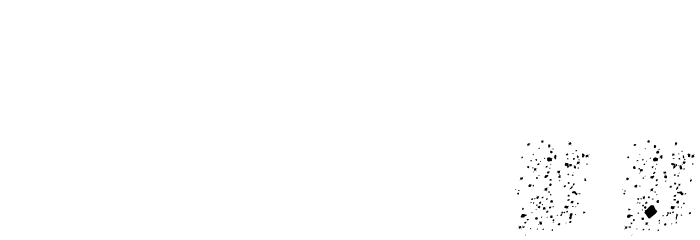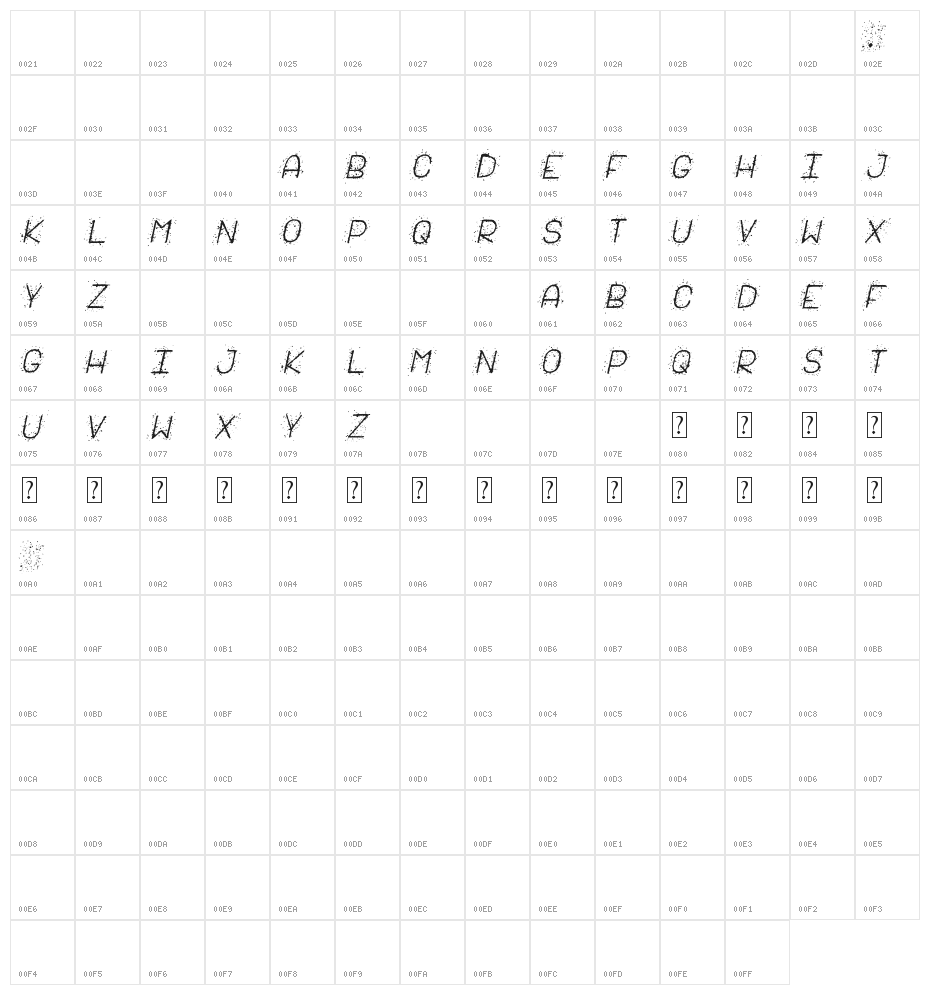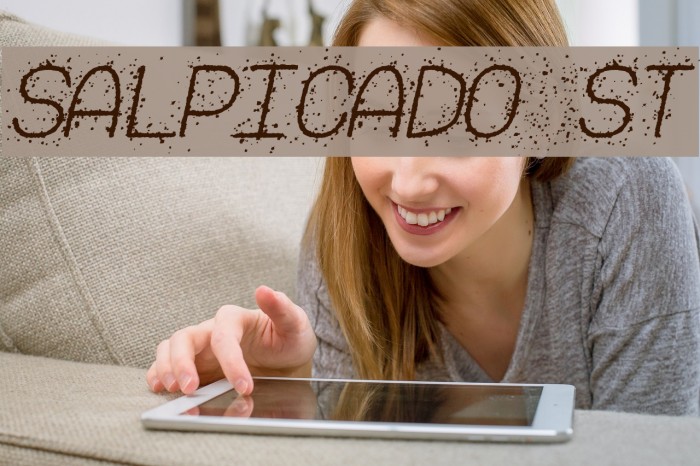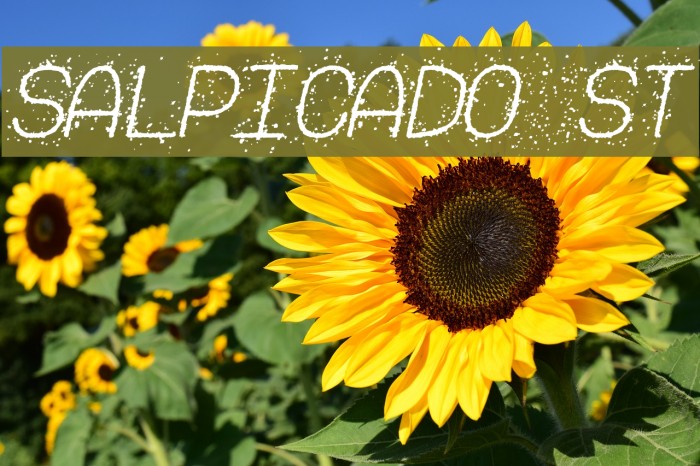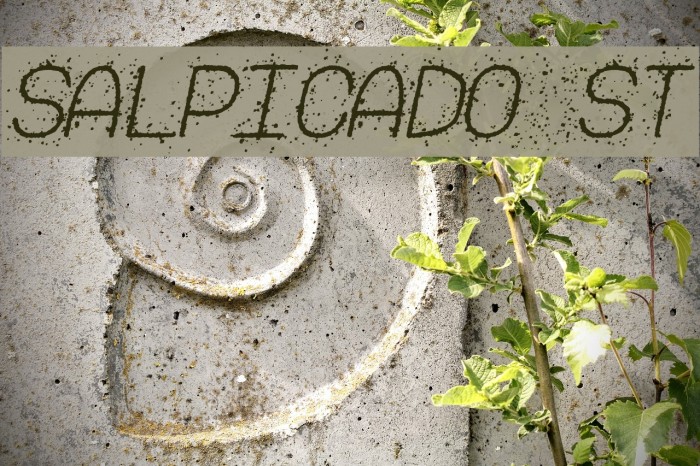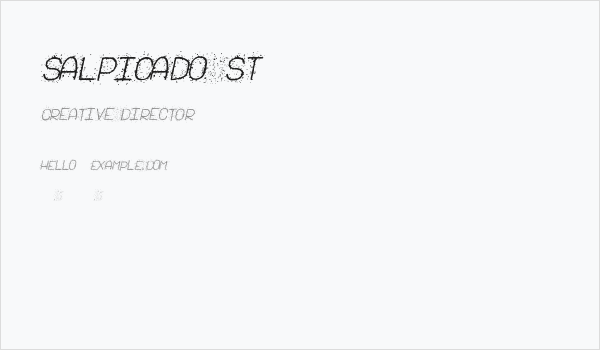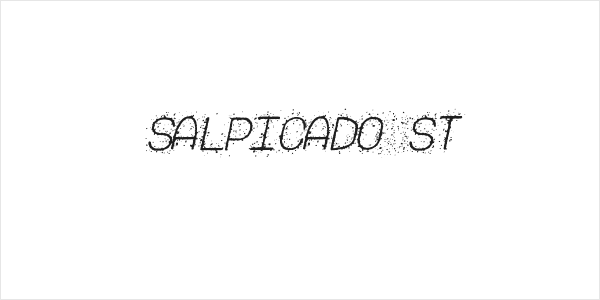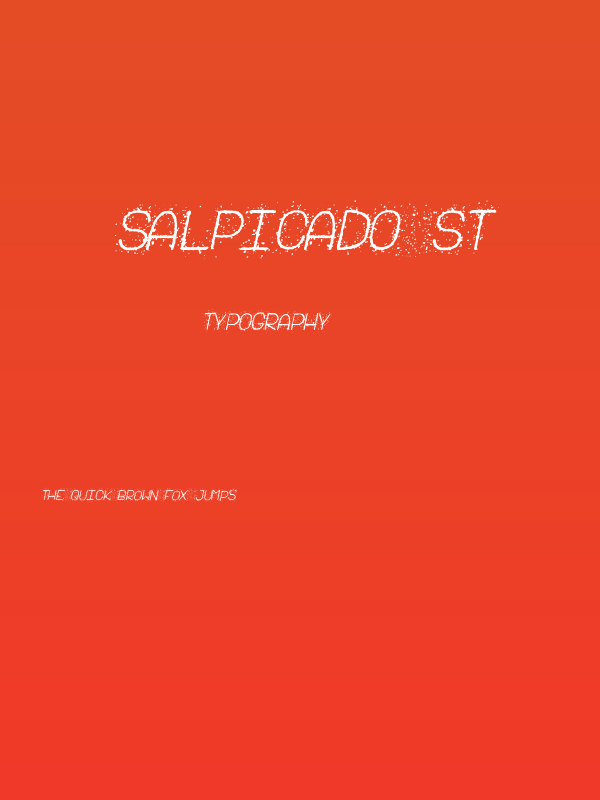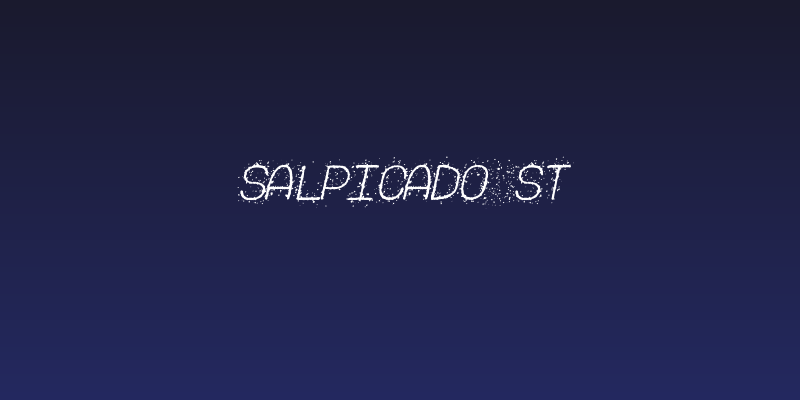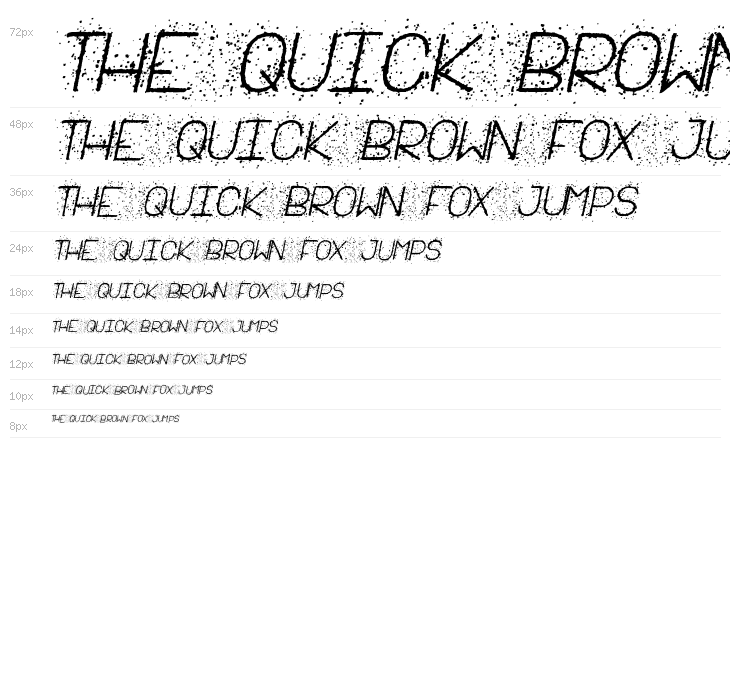
Salpicado St Font
Salpicado St Description
This font features a unique, speckled texture that gives it a dynamic and energetic appearance. The characters are crafted with a consistent stroke width, creating a uniform look across both uppercase and lowercase letters. The speckled effect adds a sense of movement and texture, making it stand out in any design. The letters are slightly slanted, adding a touch of informality and playfulness. This font is ideal for creative projects that require a distinctive and eye-catching typeface.
| Proposed Projects | Ideal for posters, album covers, artistic branding, and creative digital content. |